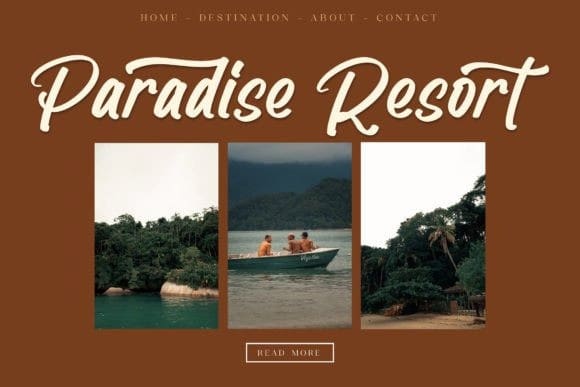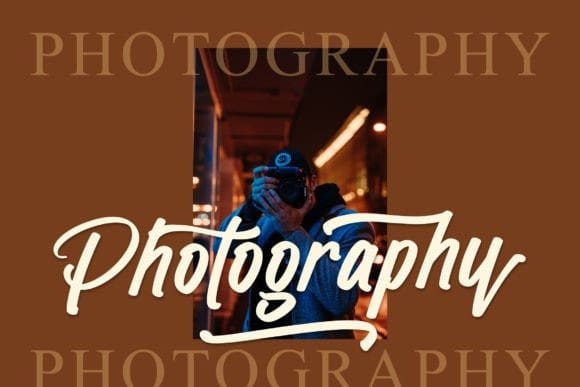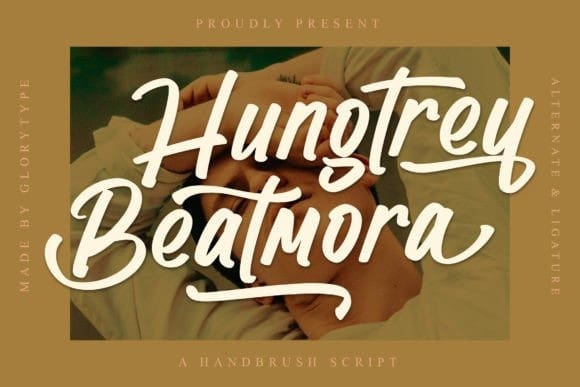
Hungtrey Beatmora Font
Hungtrey Beatmora Font, is a handwritten brush script designed to charm your projects. From quotes and packaging to whatever else, this font will send the message you desire.